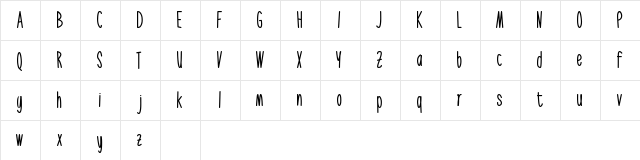
Filatelis Regular
Design Context for Filatelis Typeface
Filatelis is a composed and adaptable typeface that performs quietly and consistently across a wide range of design contexts.